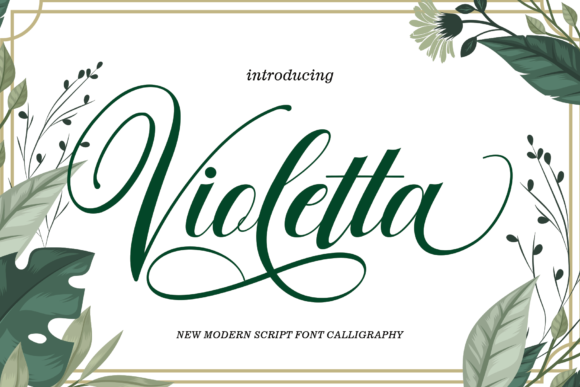
Prepare to be captivated by Violetta, the epitome of ethereal elegance in the realm of script fonts. Her delicate strokes dance across the page like a graceful ballerina, whispering tales of creativity and sophistication. Crafted by the visionary artisans at MYdesign, Violetta is a masterpiece that will transform your branding endeavors into enchanting works of art.
Step into a world where imagination knows no bounds. Let Violetta guide your hand as you weave intricate logos that speak volumes about your brand's unique essence. Picture your designs emblazoned across premium t-shirts, their messages amplified by the timeless allure of this captivating script. Unleash your creativity and let Violetta's mesmerizing curves ignite a symphony of innovative products that will captivate your audience.
Violetta's versatility is unparalleled, effortlessly adapting to a kaleidoscope of contexts. Whether you're seeking a font to grace the pages of your captivating novel, design alluring social media posts, or craft enchanting wedding invitations, Violetta's presence will elevate your creations to new heights of artistic expression.
With Violetta as your muse, your branding will transcend the ordinary, leaving an indelible mark on the hearts and minds of your clientele. Experience the transformative power of this enchanting script font today and witness the magic unfold before your very eyes.